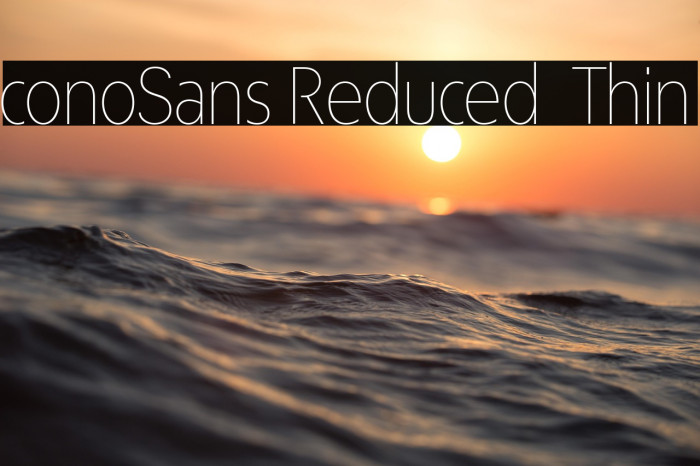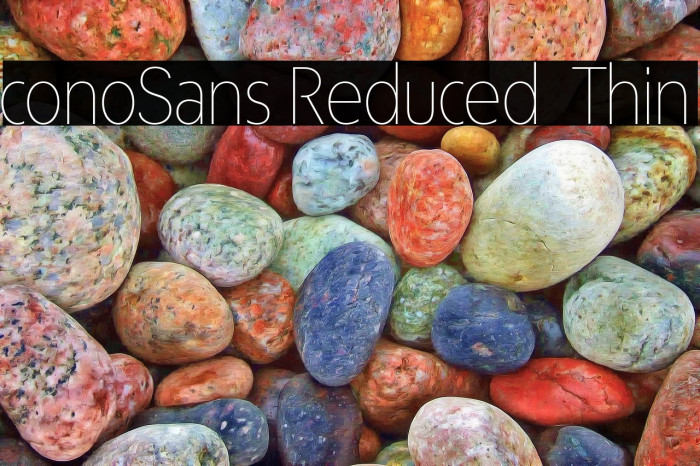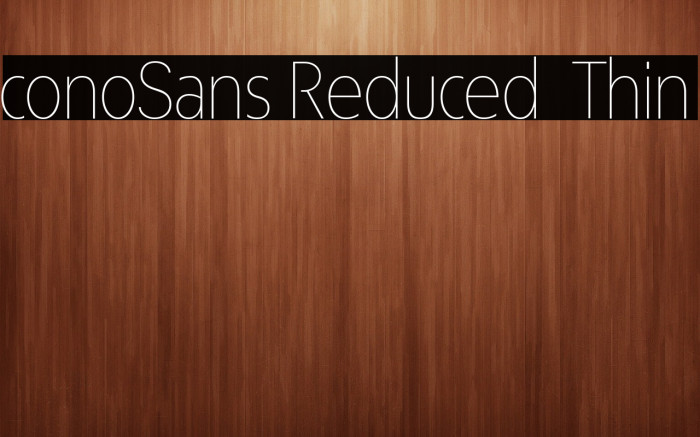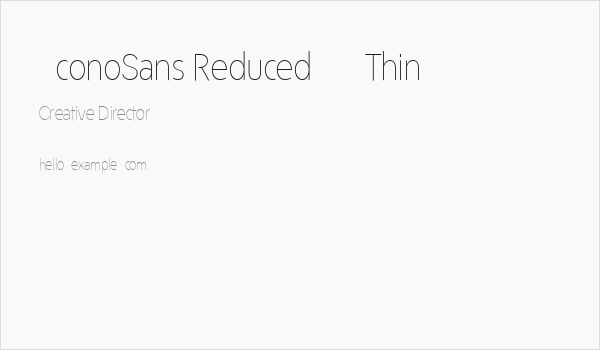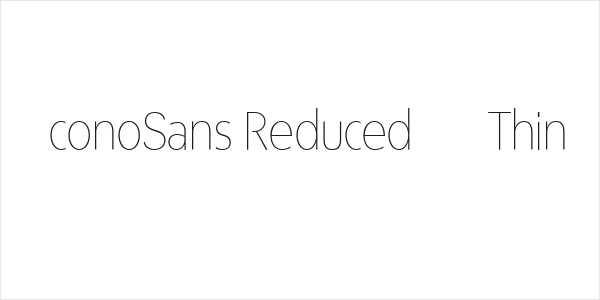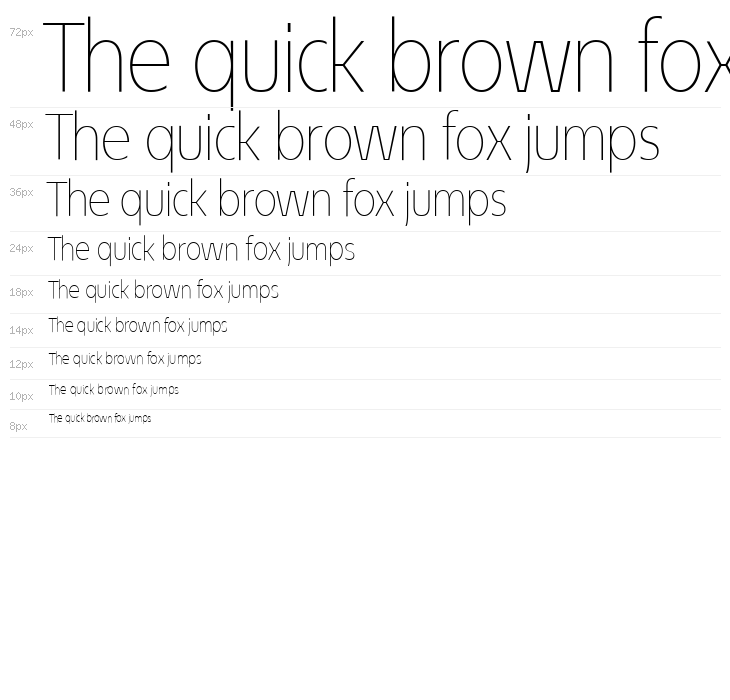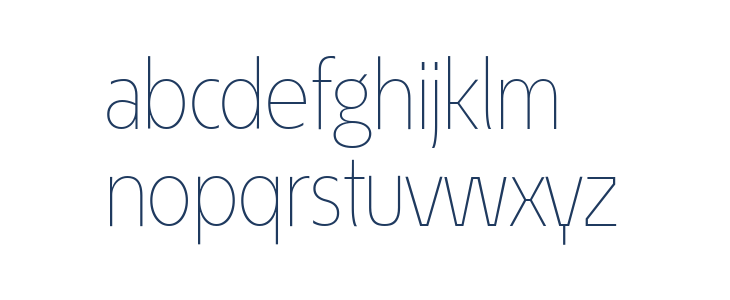
ÉconoSans Reduced 35 Thin Font
ÉconoSans Reduced 35 Thin Description
This font features a clean and minimalistic design with a sans-serif style. The characters are thin and elongated, giving it a modern and elegant appearance. The uppercase and lowercase letters maintain a consistent height, contributing to a uniform look. The strokes are even and the overall design is sleek, making it suitable for contemporary projects. The font's simplicity and clarity make it highly readable, while its thin lines add a touch of sophistication. It is versatile and can be used in various design contexts where a modern and clean aesthetic is desired.
| Proposed Projects | Ideal for branding, editorial design, web design, and minimalist posters. |